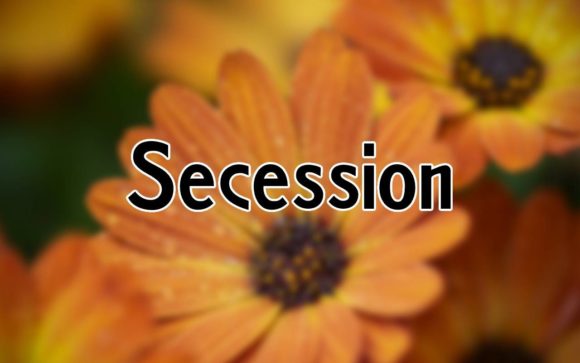
Introducing Secession Font: A Sans Serif Masterpiece for Web Design
Dive into the world of Secession, a sans serif font that breaks the mold with its captivating personality. Its clean lines and unexpected accents create a visual symphony that will elevate your web designs to new heights. Step into a realm where sophistication meets playfulness, where your projects exude an aura of elegance without sacrificing a touch of whimsy.
With Secession, you'll embark on a typographic journey that dances between the traditional and the contemporary. Its crisp edges and sturdy structure provide a solid foundation for your words, while its playful accents add a touch of intrigue that sets it apart from the ordinary. Experience the magic as your designs come alive with a font that commands attention without overpowering your content.
Unlock the Power of Secession for Your Web Projects:
- Immerse yourself in a world of endless possibilities with Secession, the perfect font for web design. Its versatility knows no bounds, effortlessly adapting to various digital platforms. From sleek landing pages to engaging blog posts, Secession seamlessly integrates into your vision, enhancing the user experience with its readability and captivating charm.
- Captivate Your Audience with Unforgettable Headlines: Secession's bold and distinctive character makes headlines that demand attention. Its ability to convey messages with clarity and impact ensures that your words will resonate with your audience, leaving a lasting impression that keeps them engaged and eager for more.
- Craft Compelling Call-to-Actions that Drive Conversions: Turn your website visitors into loyal customers with Secession's persuasive call-to-actions. Its ability to instill a sense of urgency and inspire action makes it the ideal choice for driving conversions. Watch as your engagement rates soar and your bottom line flourishes.
- Unleash the Storyteller Within: Secession's versatility extends beyond headlines and call-to-actions. Its ability to weave narratives and convey emotions through its unique letterforms makes it the perfect font for crafting captivating stories that connect with your audience on a deeper level. Engage them with tales that resonate, leaving them captivated and eager for more.
Experience the Secession Difference: